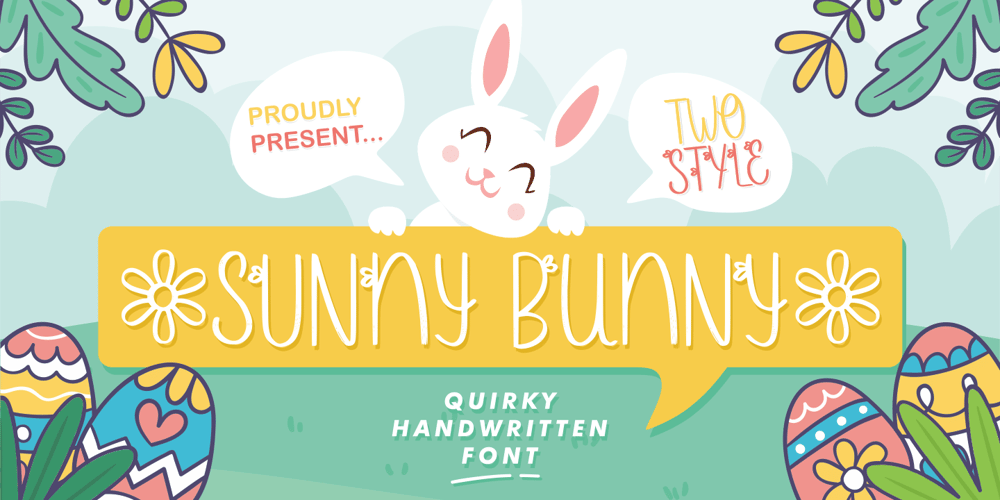
Sunny Bunny
Sunny Bunny font
Sunny Bunny Font Family was designed by Fachrizal Yusuf and published by Allouse Studio. Sunny Bunny contains 2 styles and family package options. Sunny Bunny a Quirky Handwritten Font.Sunny Bunny is perfect for any tittles, logo, product packaging, branding project, megazine, social media, wedding, or just used to express words above the background.Sunny Bunny also come with Multi-Lingual Support.Enjoy the font, feel free to comment or feedback, send me PM or email. Thank You!